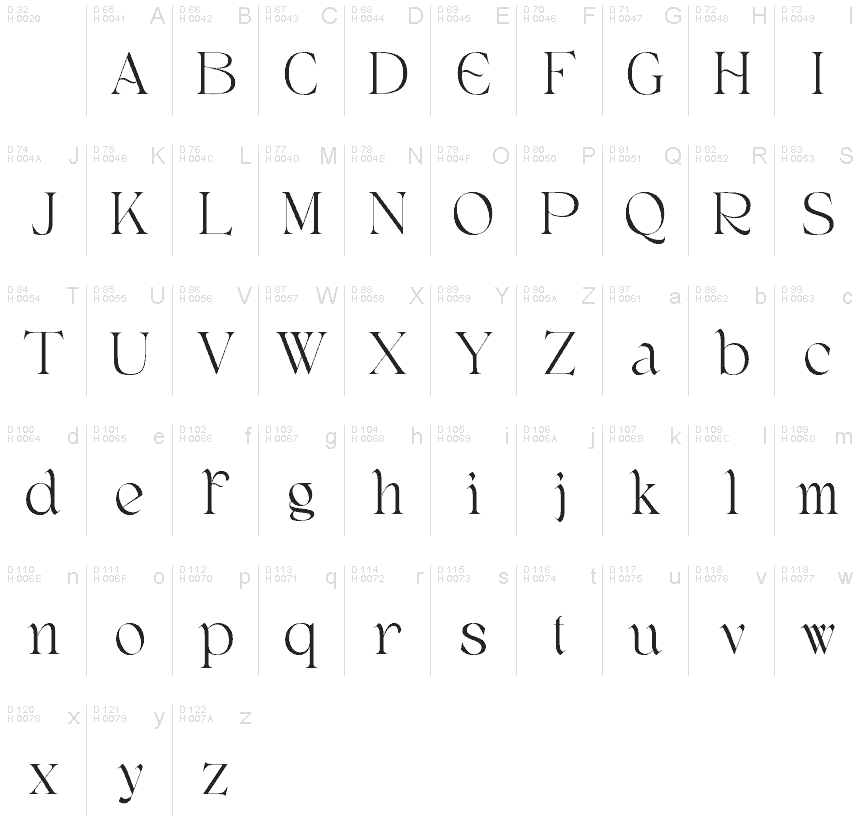
EgmondFree-Regular
Egmond font from Craft Supply Co. is a vintage serif that embodies elegance, sophistication, and classic charm. The typeface marries artistic flair with expressive details to give words life with character and allure. Historical ambiance is felt within every letterform, elevating this unique font on multiple levels.